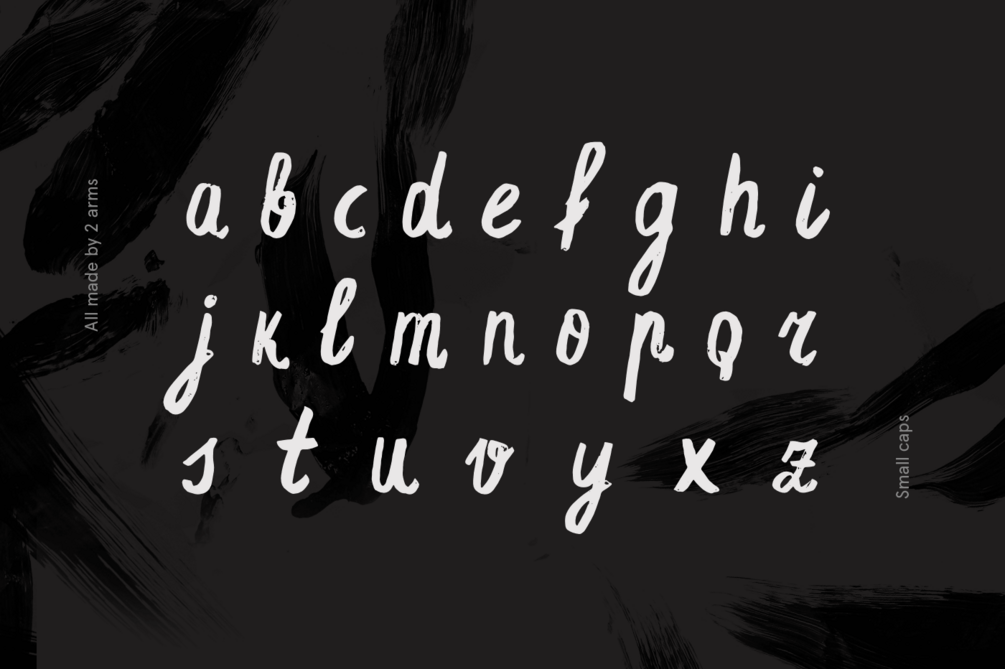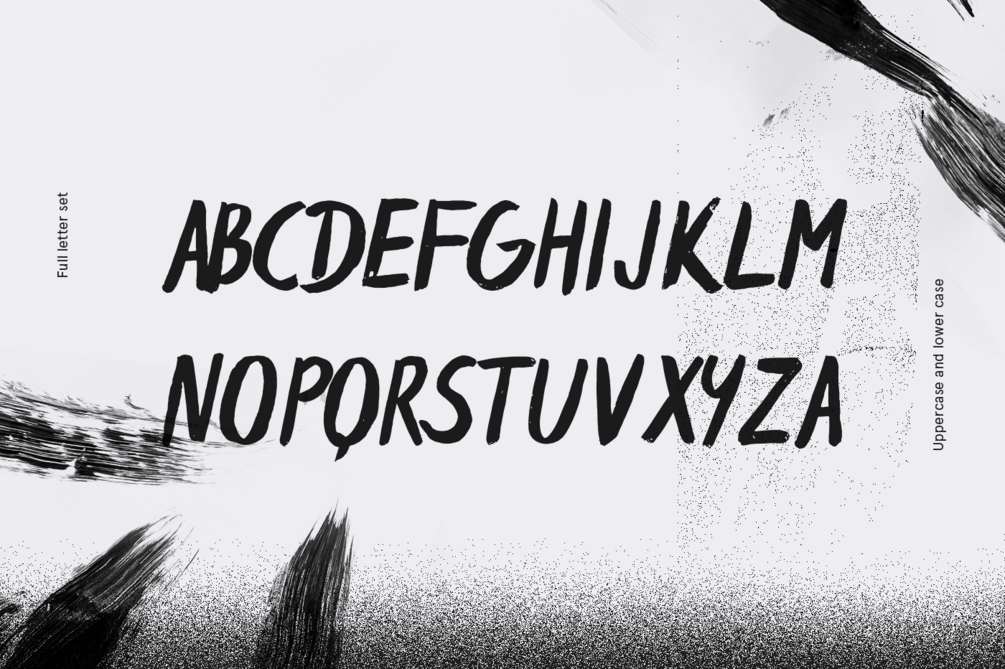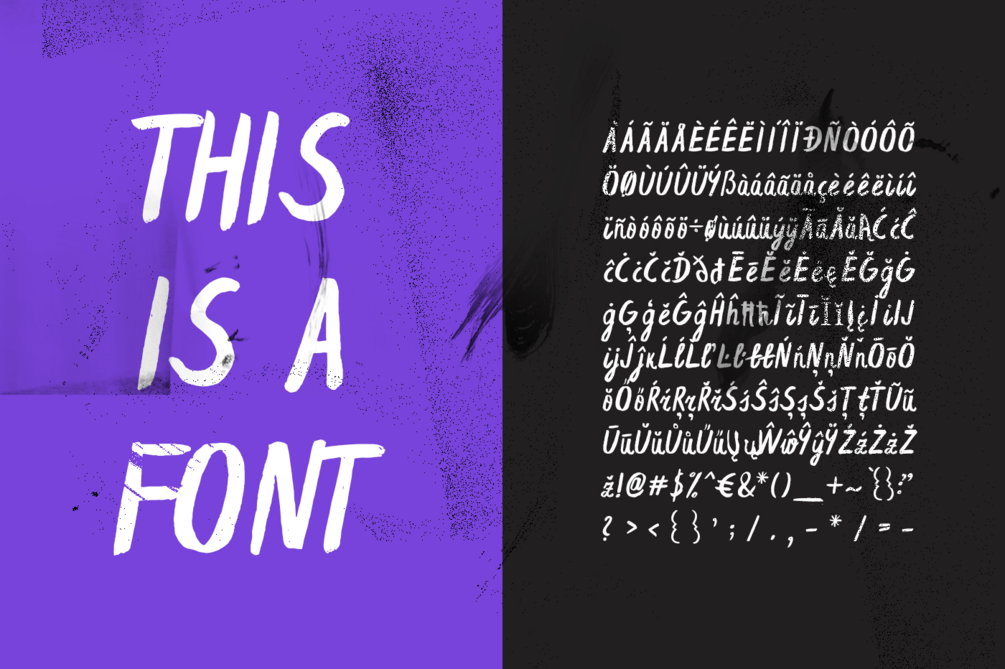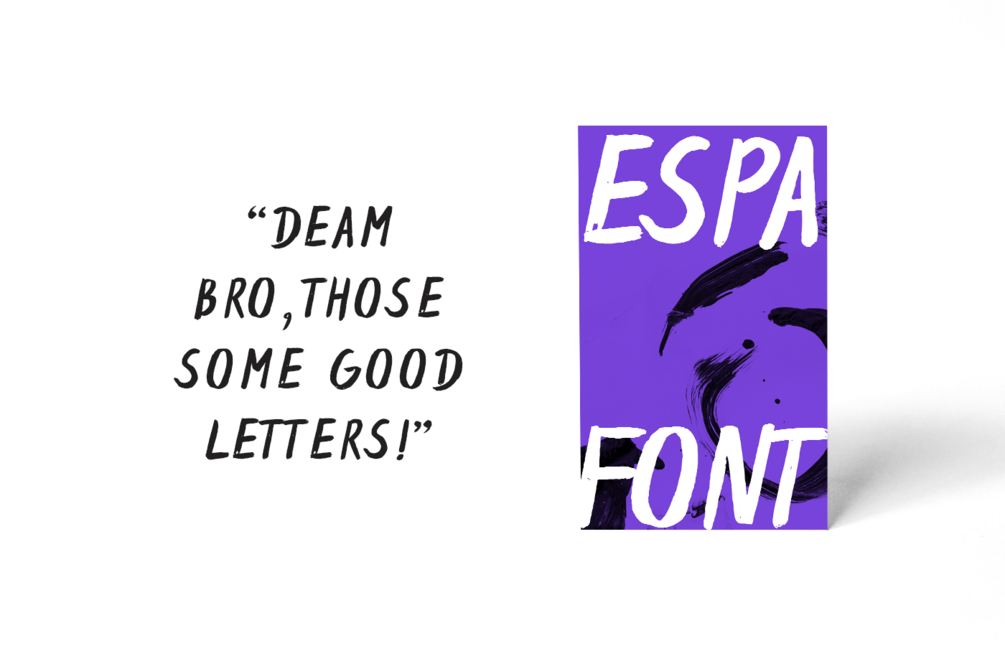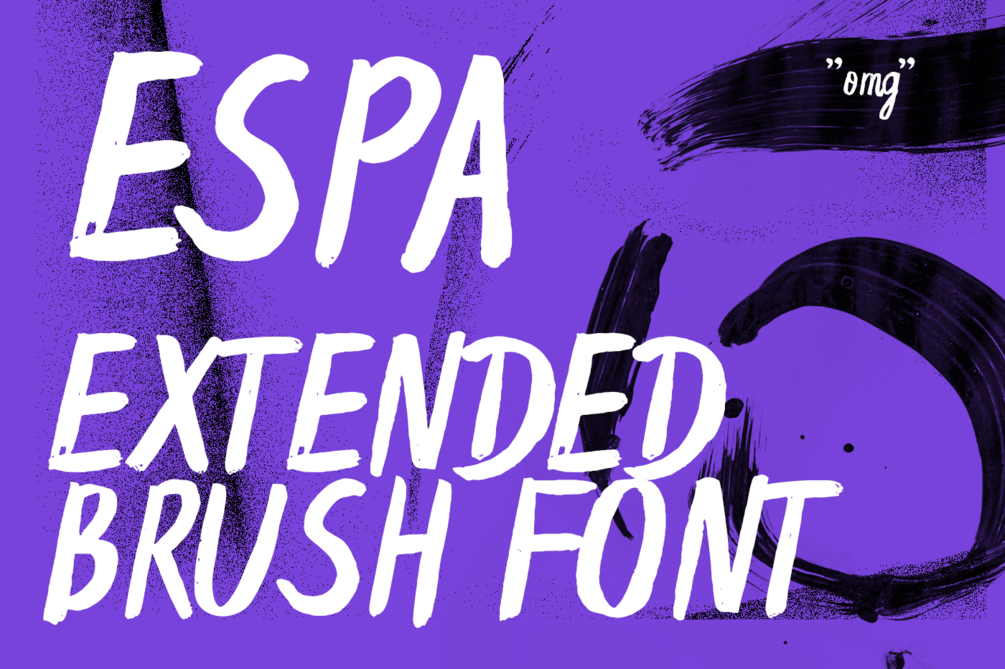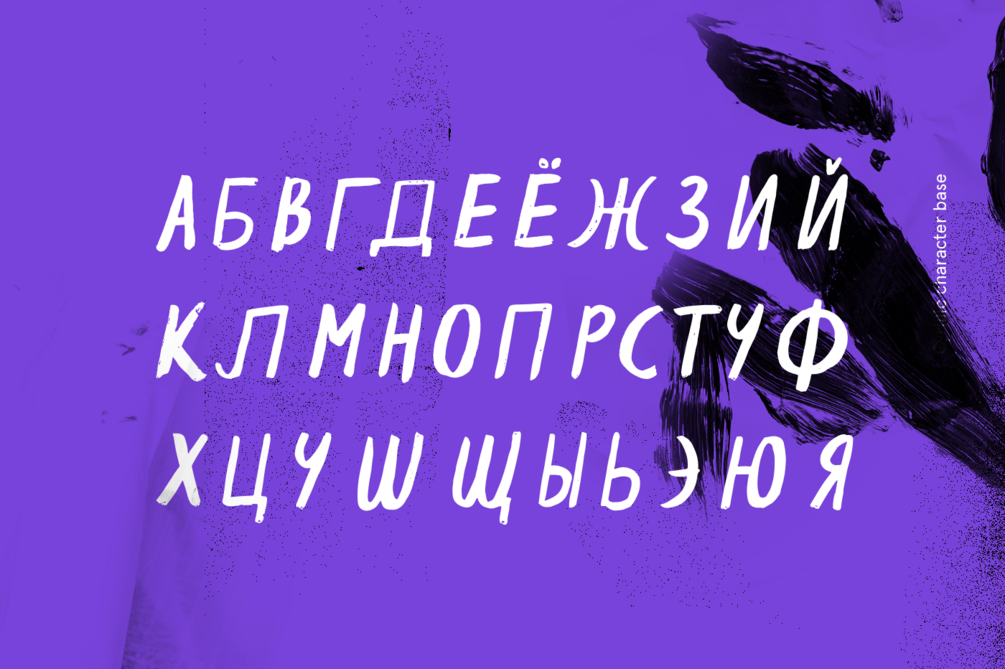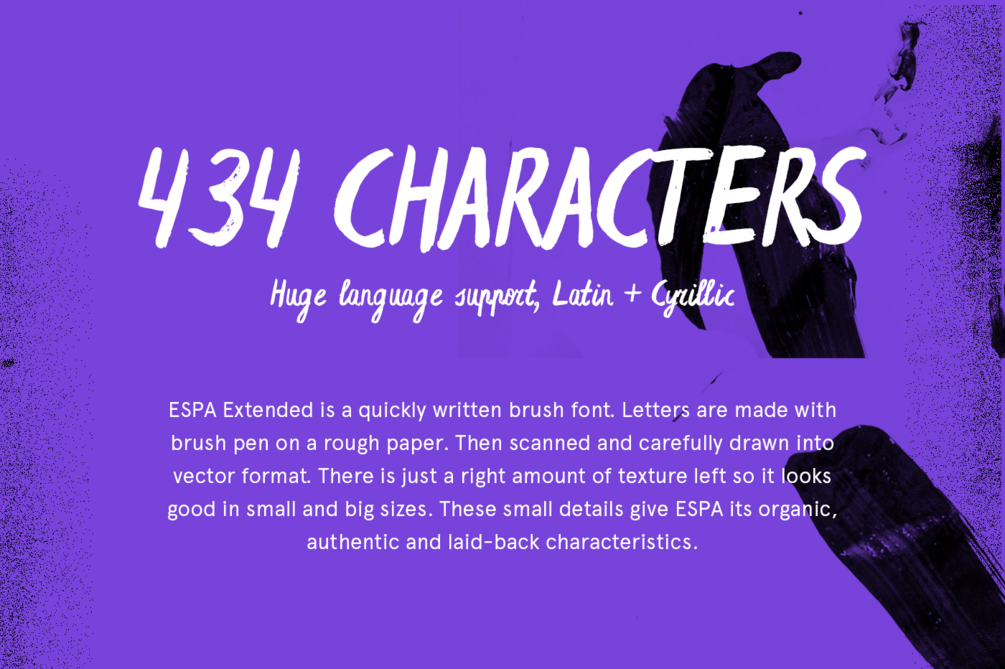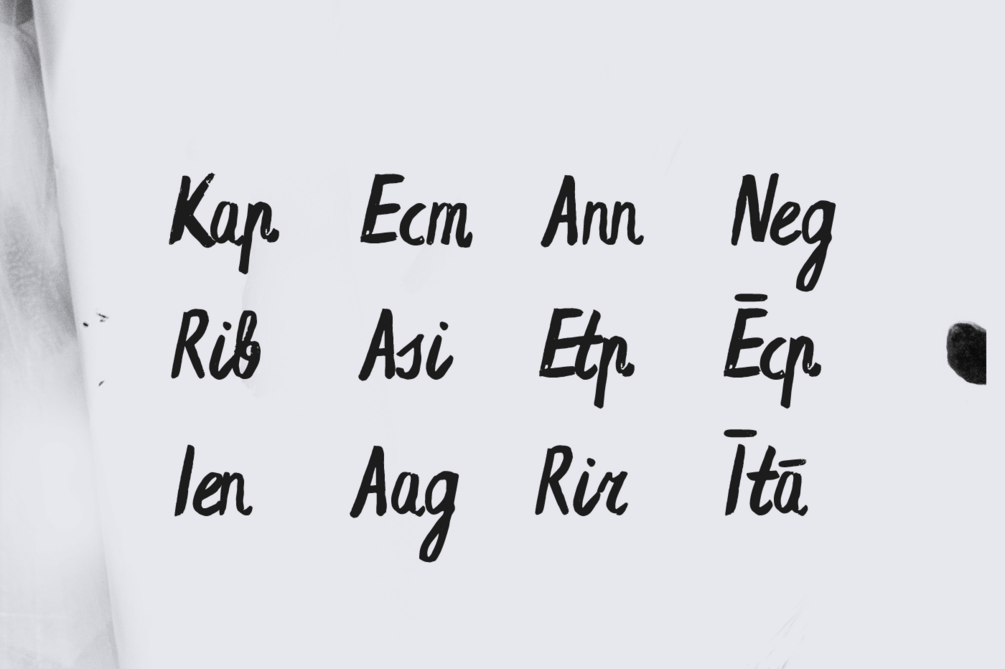
Espa Extended Brush Font
Espa Extended brush font is a handwritten font that contains 434 characters, with it's own personality, looks great for any kind of project and gives a unique touch for every kind of work.
The font features both uppercase and lowercase letters, so you will have a wide range of characters to use in typographic work. It has updated open type features and advanced kerning. Multiple language support.
Latin Extended + Cyrillic